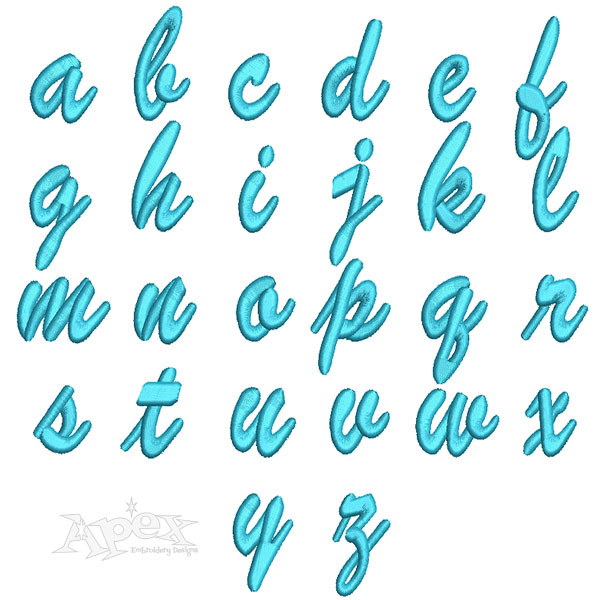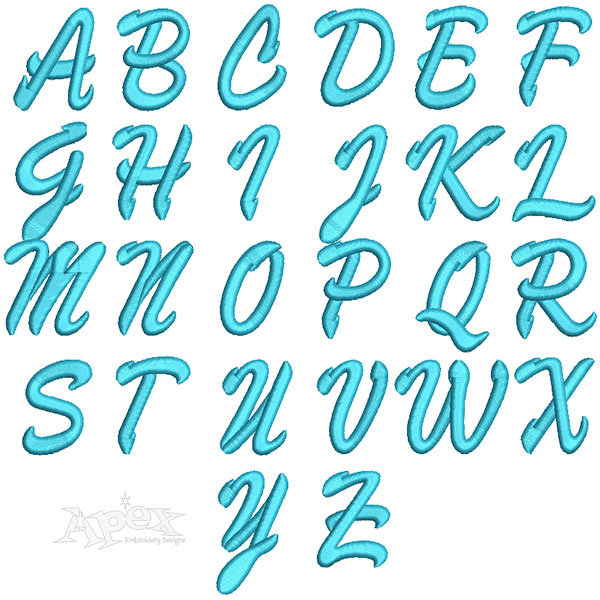
Oxford Script Embroidery Font
Create Ole Miss Matching names with this Oxford Script set. Clean readable university script embroidery set is perfect for customizing hats, linens, towels, baby gifts, tote bags, and more. Included All Letters A-Z Upper and Lowercase.
Oxford Mississippi Script embroidery font collection includes complete size sets with cursive script letters designed for creating stunning personalized names. Each font comes professionally digitized for smooth stitching and excellent embroidery results.
- Oxford Script Hooks Script Font